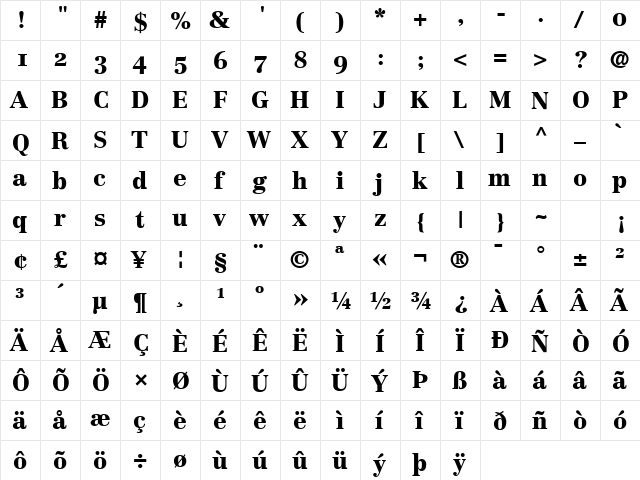
Century Reprise BlackOS SSi Bold
Design Context for Century Reprise BlackOS SSi Typeface
Century Reprise BlackOS SSi is a composed and adaptable typeface that performs quietly and consistently across a wide range of design contexts. The heavy weight commands attention and anchors typographic hierarchies.